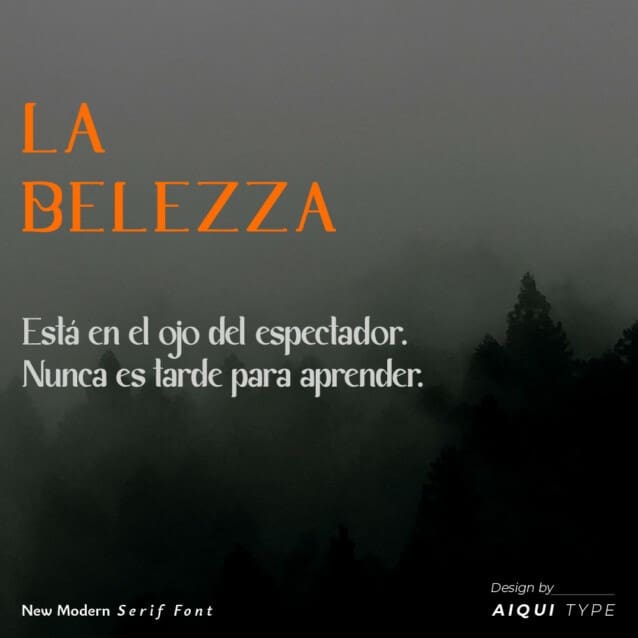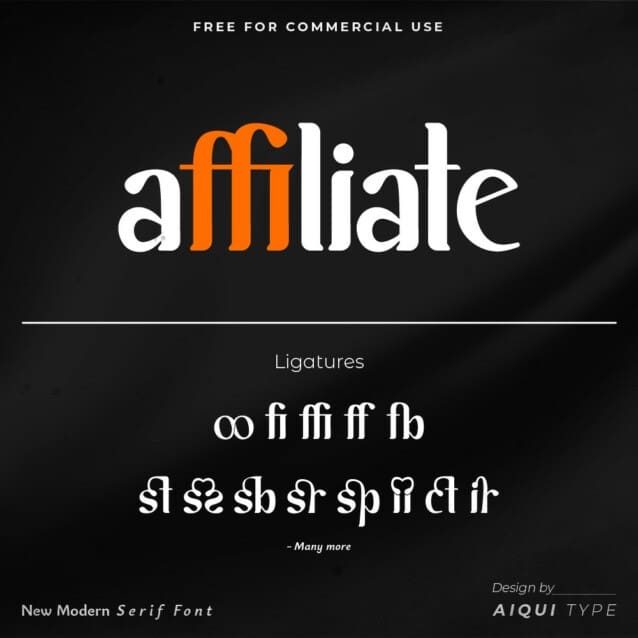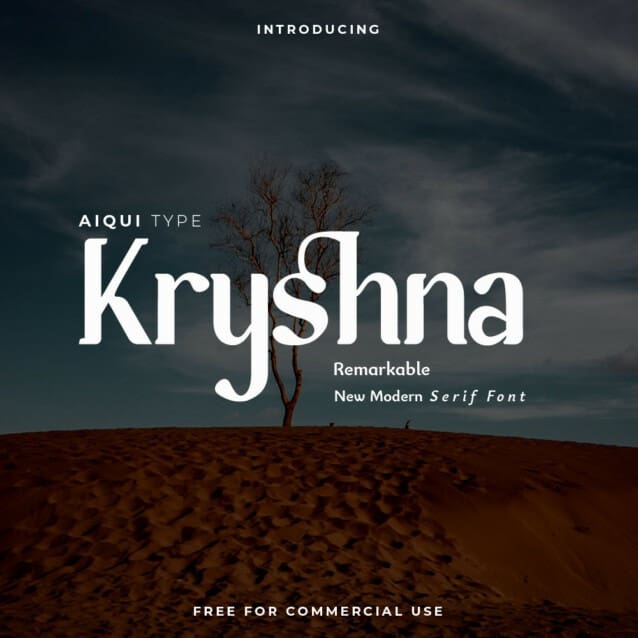
Kryshna Display Font
Kryshna Display Font, is a retro vibe headline display font. With a stunning collection of 360 Glyphs, our font offers endless creative possibilities, allowing you to bring your designs to life with every character stroke. You can use it for various projects, such as blog posts, logos, branding, ads, invitations, greeting cards, planners, photo albums, decorations, and much more.